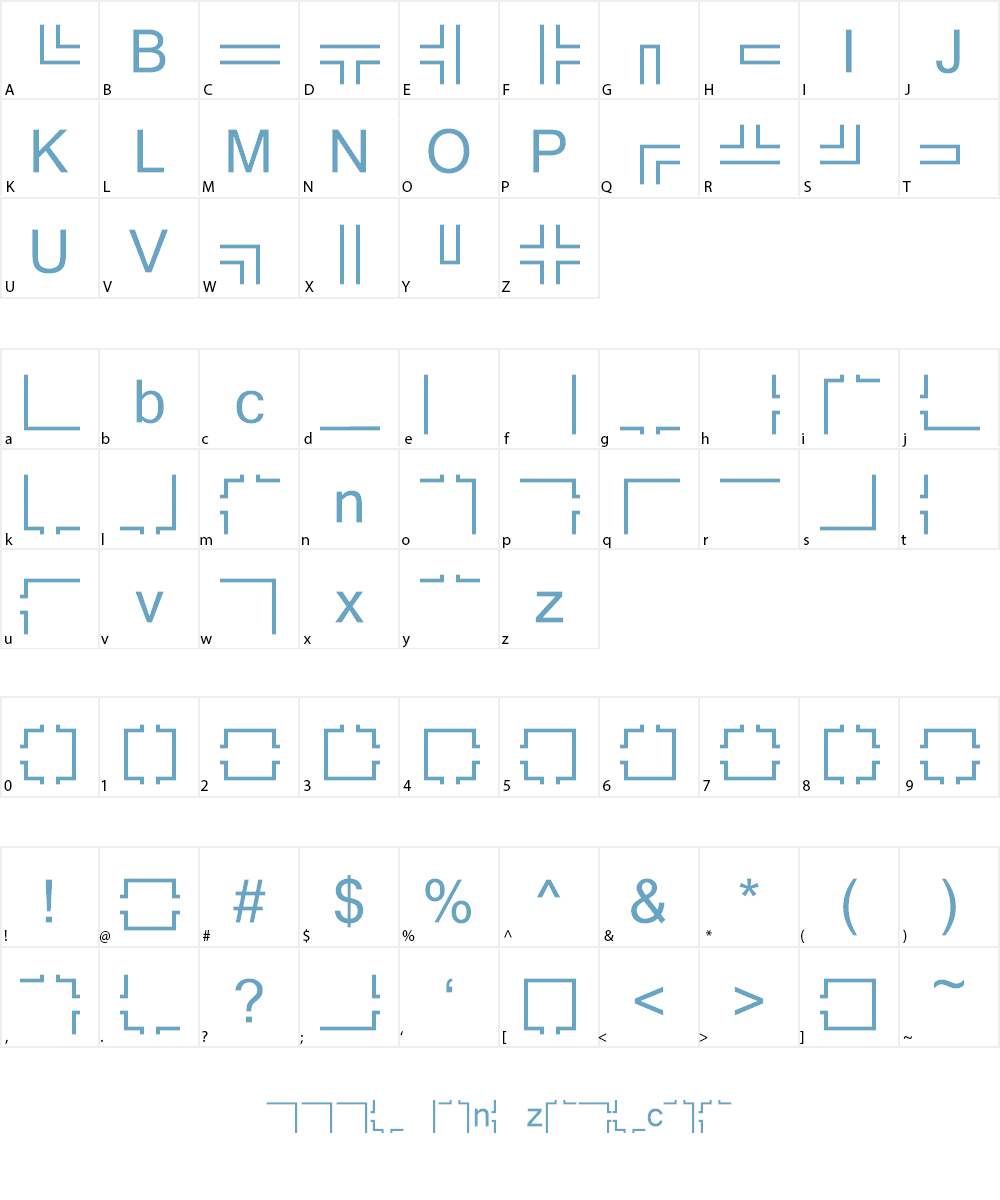
I originally created this font for use with fantasy role-playing games to create dungeons. It's a lot easier than mapping everything out by hand on graph paper.